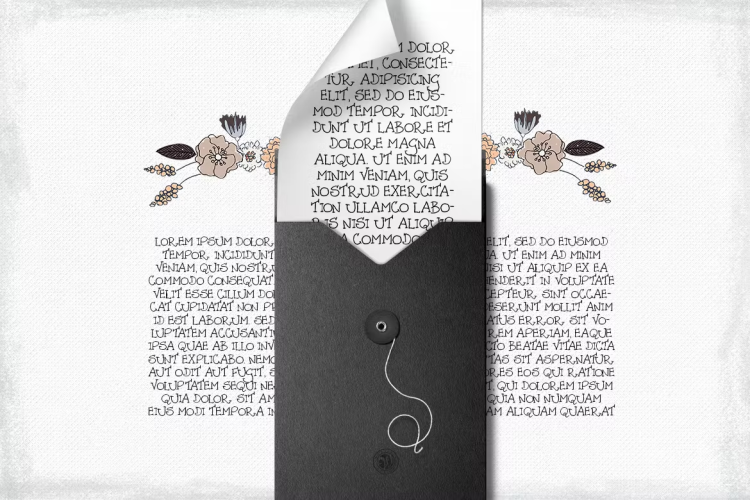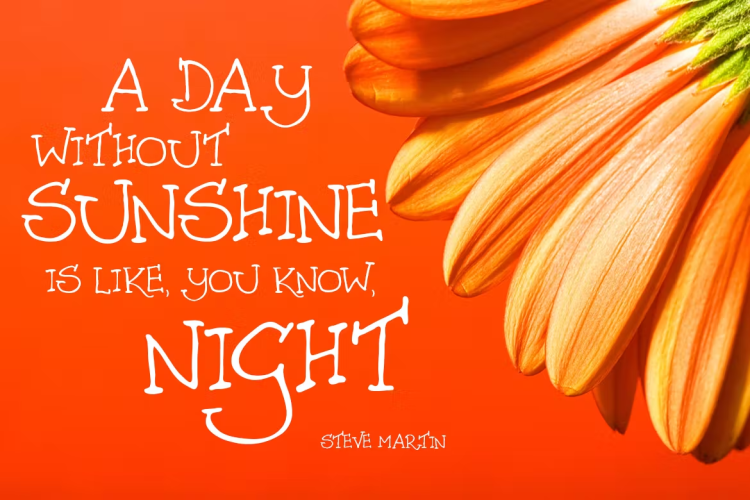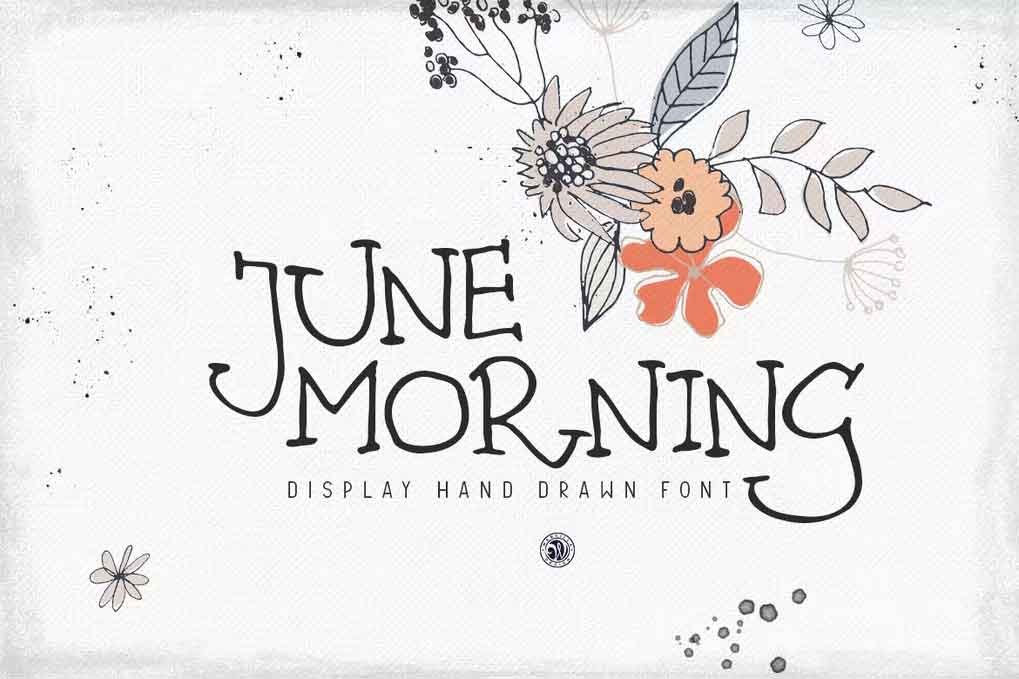
June Morning Font
June Morning font – hand lettering display font. Ideal for invitations, logos, branding, blogs, handmade craft items, scrap booking, printed paper items and more. Thank…
Character set · 105 glyphs
June Morning font – hand lettering display font. Ideal for invitations, logos, branding, blogs, handmade craft items, scrap booking, printed paper items and more.
Where June Morning Font works best
June Morning Font gives long-form text a classic, trustworthy rhythm — ideal for magazine spreads, annual reports and book interiors.
Pair June Morning Font with generous letter-spacing for wordmarks in fashion, hospitality, wine and jewellery branding.
Use June Morning Font for slide titles in Keynote, PowerPoint or Google Slides to add authority without looking dated.
What is June Morning Font good for?
June Morning Font is a Serif Fonts typeface tagged Branding, Display, Handwritten, Serif. It works well for headlines, logos, posters, social media graphics and branding projects that need a distinctive serif fonts look.